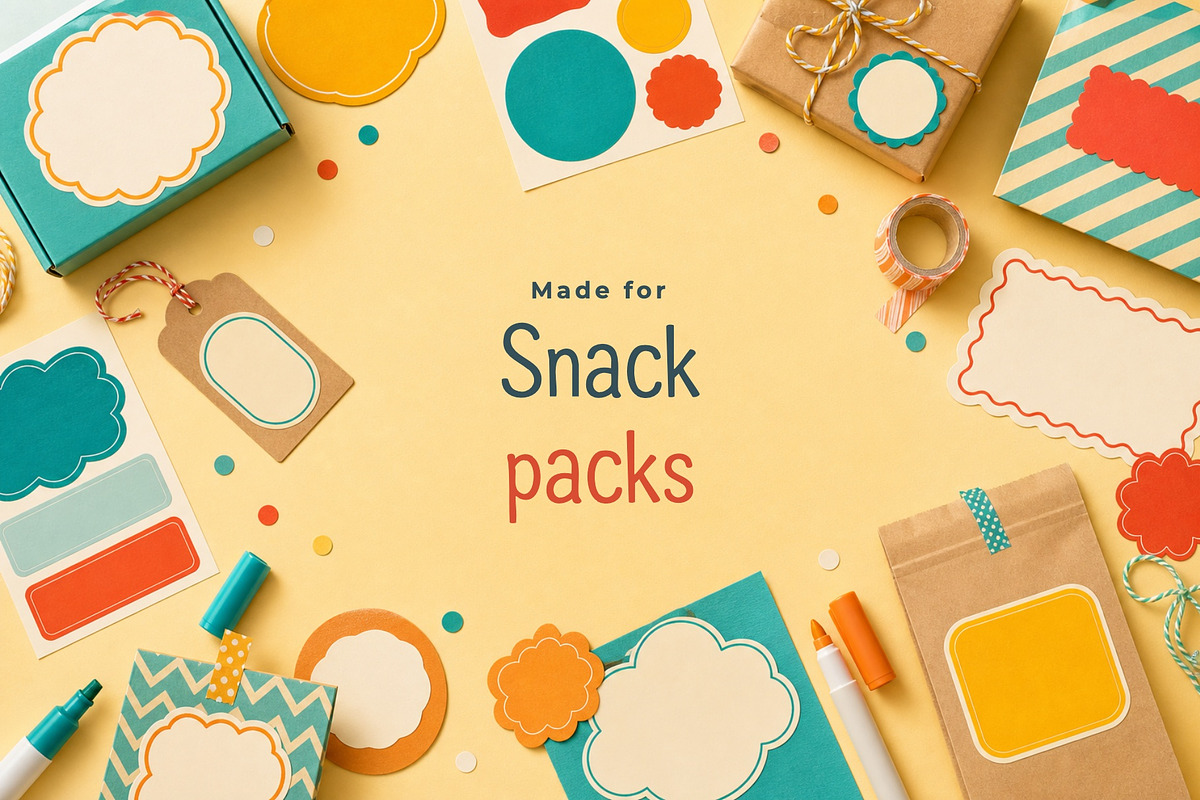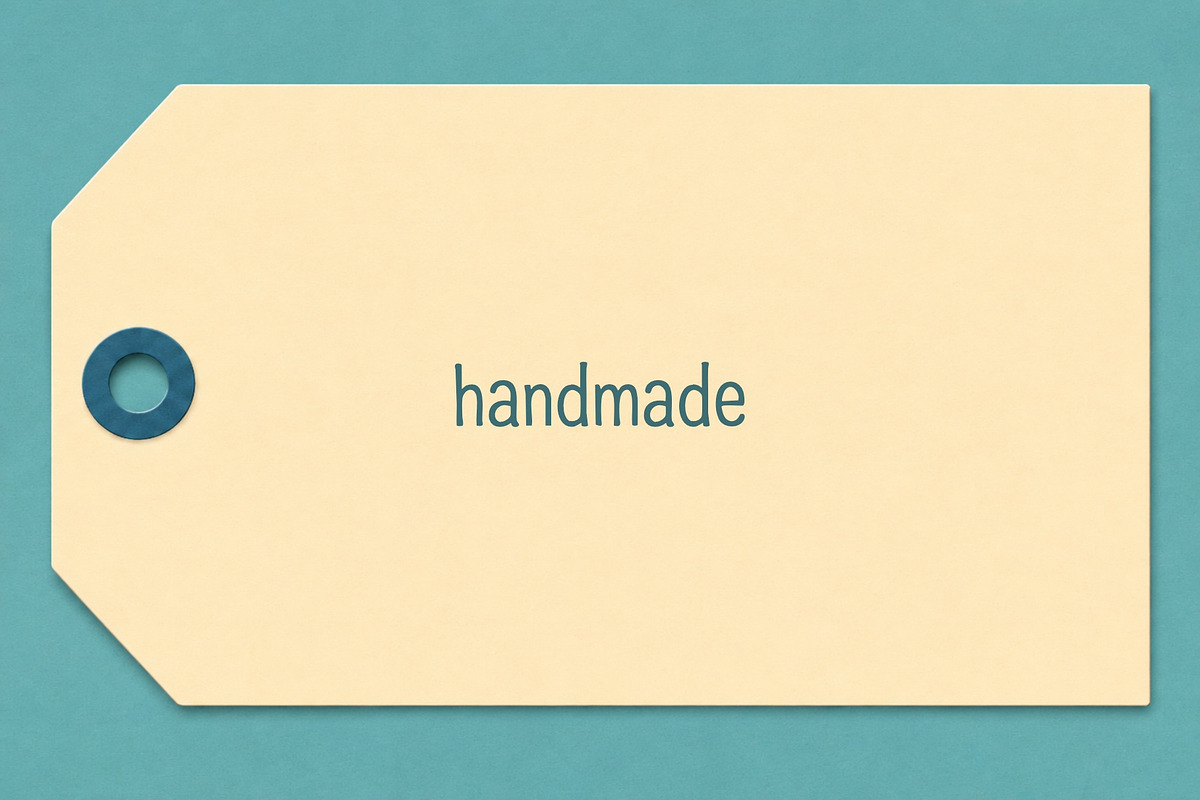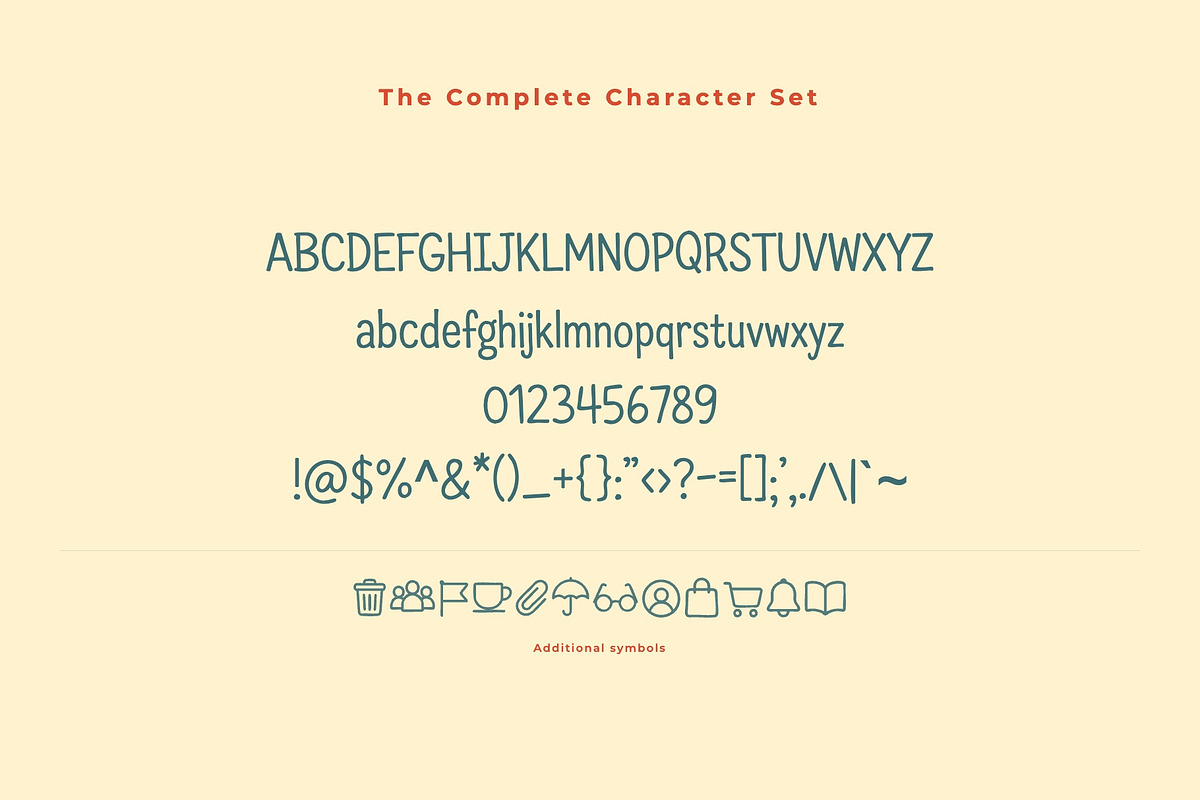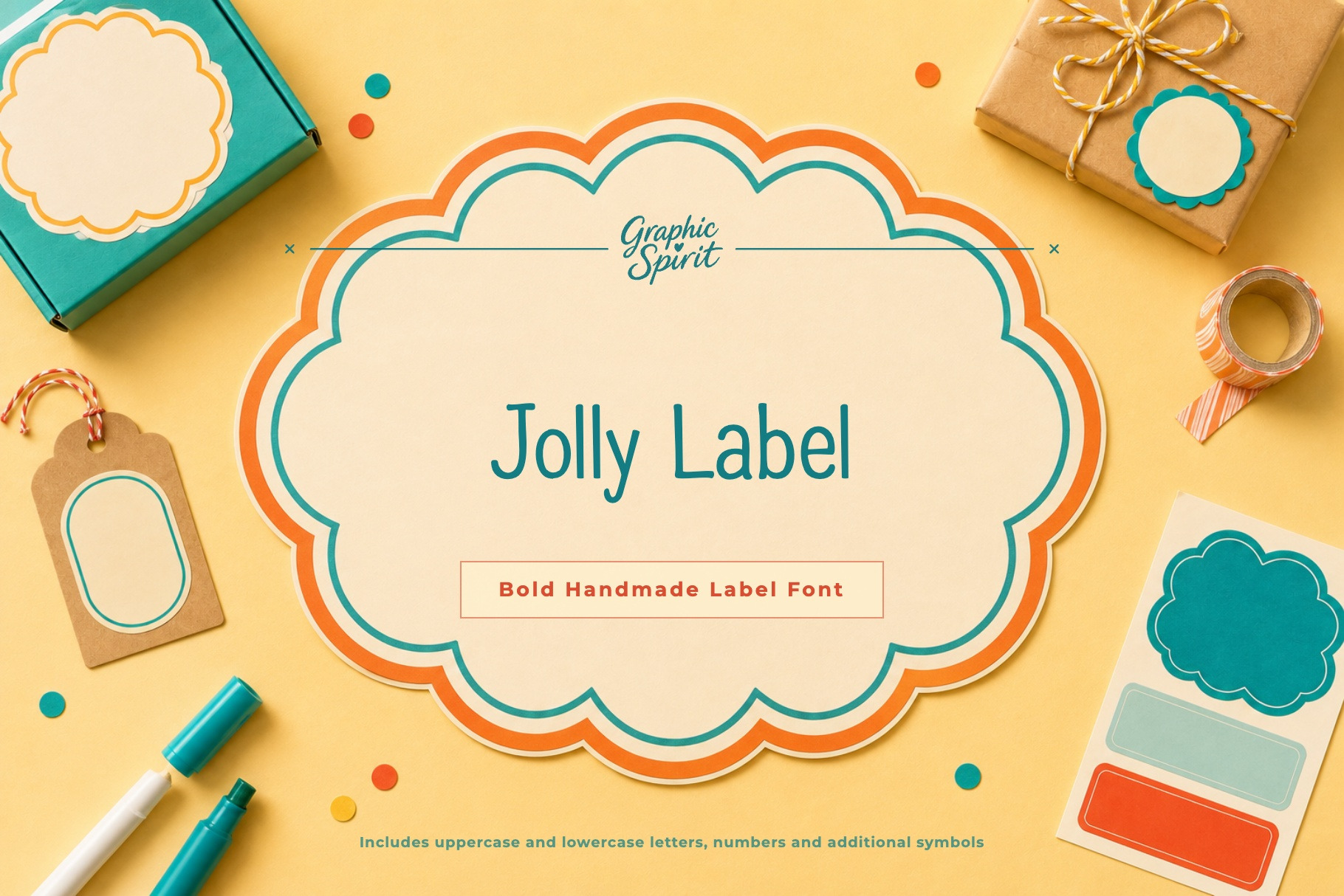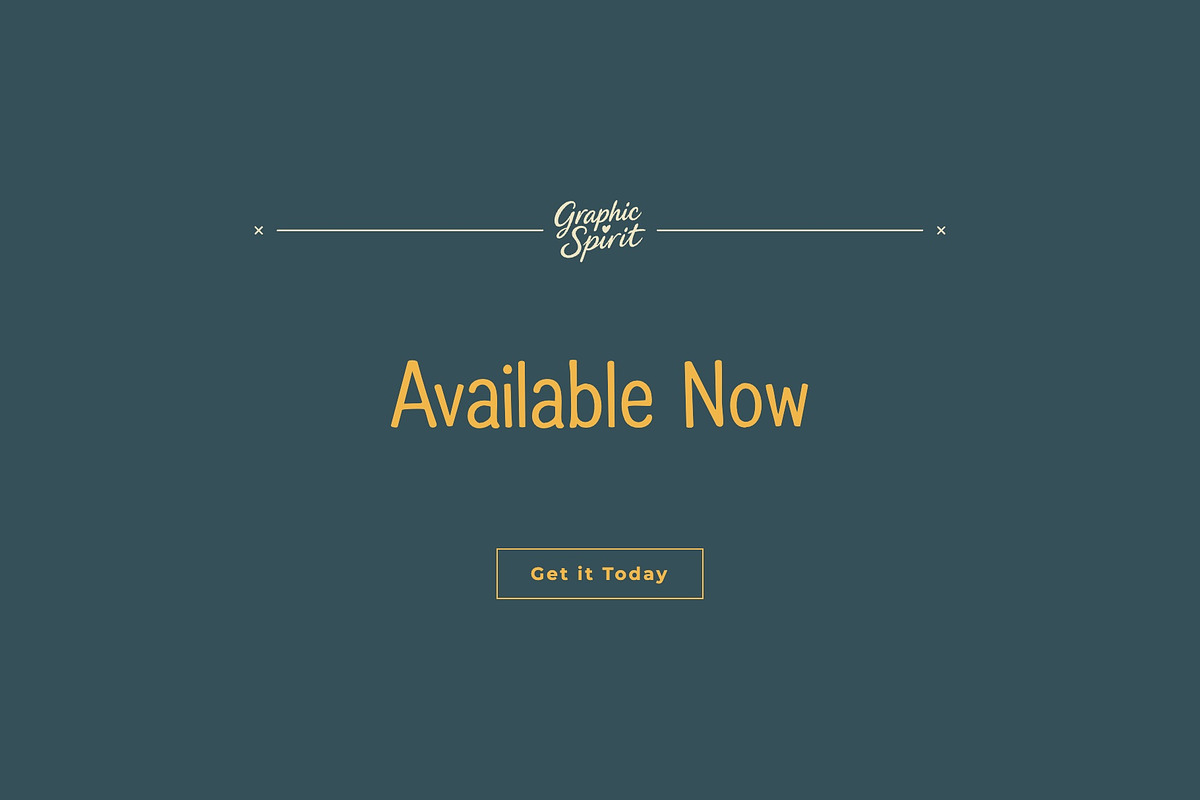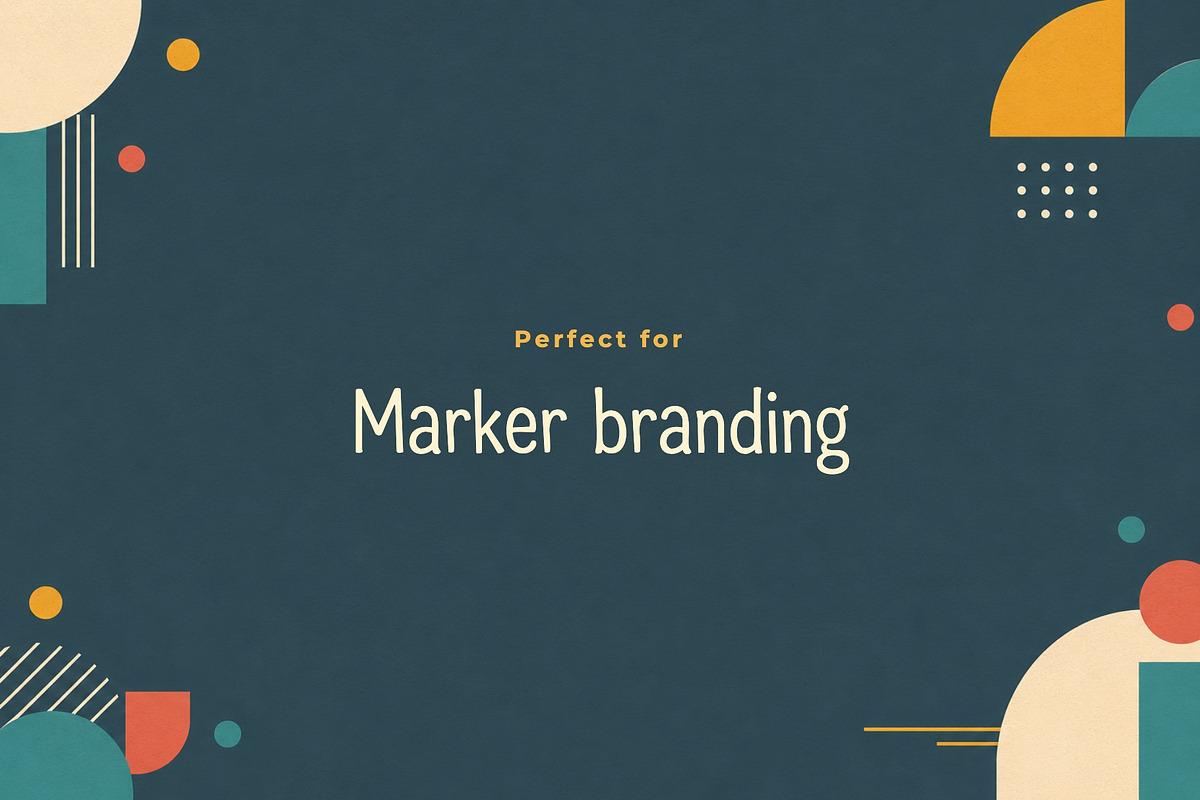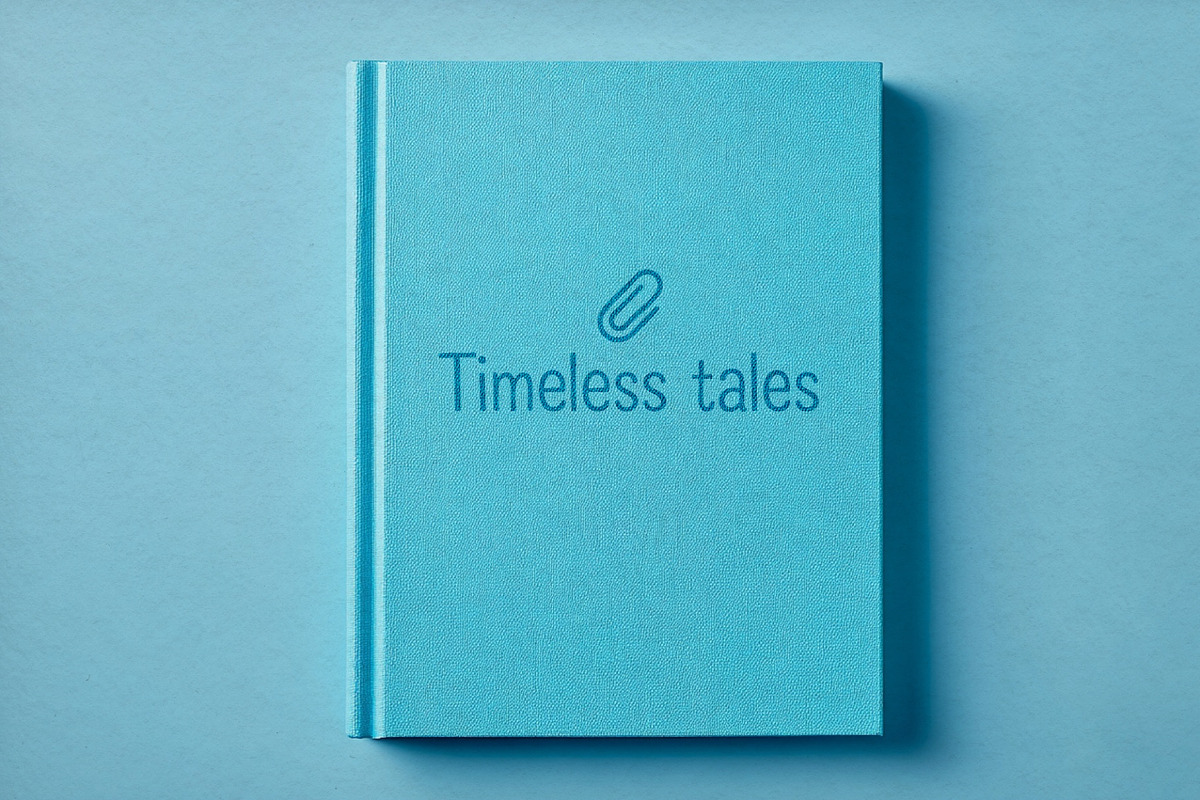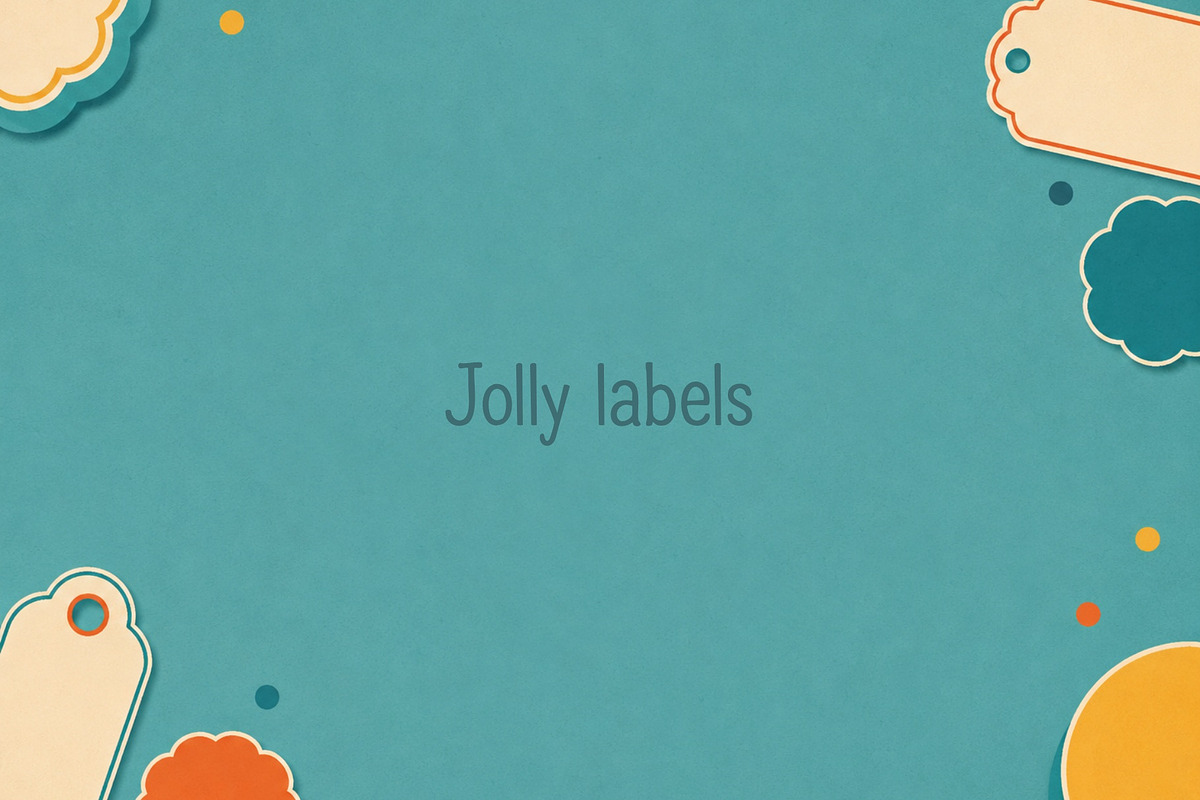
Jolly Label Font
✨ Jolly Label is a bold handmade label font with cheerful label shapes, bright market colors, and playful handmade packaging energy. It was created for designers, makers, and small brands who need expressive typography with a clear visual personality.
🎨 Jolly Label works beautifully for snack packs, handmade labels, marker branding, party packaging, craft products, kids products, market signs, cheerful logos. The style is strong enough for headlines and product names, but still friendly enough for approachable branding, packaging, posters, labels, social graphics, and creative layouts.
💛 The typeface has a distinct display rhythm, so even short words feel designed and intentional. It is a useful choice when you want a project to feel crafted, memorable, and visually specific.
Best for:
- 🏷️ Handmade labels and product tags
- 🍿 Snack packs and cheerful packaging
- 🖍️ Marker branding and craft goods
- 🎉 Party signs and kids products
- 🛍️ Small shop logos and market displays
Includes uppercase and lowercase letters, numbers, punctuation, and additional symbols shown in the previews.